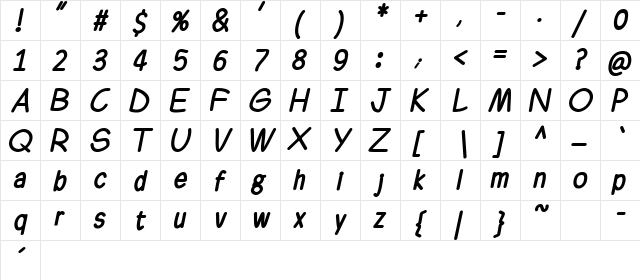
Ferrero Rocker Bold Italic
| Designer | Letterara 2019 |
Design Context for Ferrero Rocker Typeface
Ferrero Rocker takes a measured approach to typography — its balanced proportions and neutral character make it a reliable workhorse for both digital and print work. The slanted form adds forward momentum and visual energy. The heavy weight commands attention and anchors typographic hierarchies.